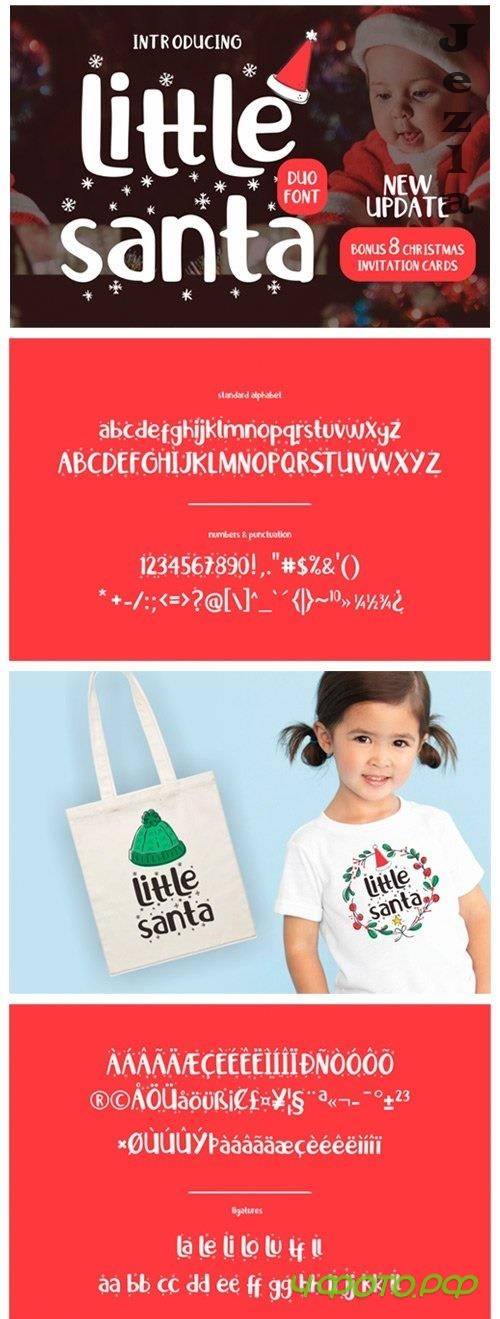
Little Santa Font
Little Santa is a cute and casual handwritten font with an incredibly friendly feel. Whether you’re looking for fonts for Instagram or calligraphy scripts for DIY projects, this display font will turn any creative idea into a true piece of art!